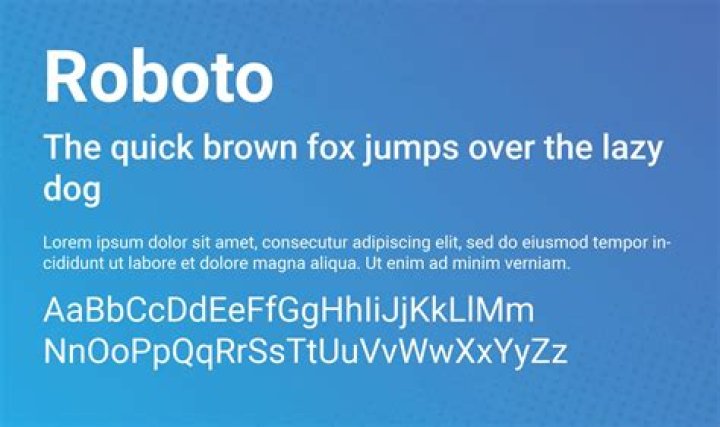
What is Roboto regular?
Roboto (/roʊˈbɒt. oʊ/) is a neo-grotesque sans-serif typeface family developed by Google as the system font for its mobile operating system Android, and released in 2011 for Android 4.0 “Ice Cream Sandwich”. The entire font family has been licensed under the Apache license.
Is Roboto an Adobe font?
Is Roboto similar to Helvetica?
The popular default Android font, Roboto, is open-source and free to use. Roboto’s lowercase letterforms are slightly thinner-feeling than Helvetica’s. As a look-alike, it’s not perfect, but Roboto is optimized for screens.
What does Roboto pair with?
Roboto font pairings Roboto is an open source, sans-serif font originally developed by Google for Android. Its a modern, crisp typeface that pairs well with Archvio, Lora, Rokkit, Nunito, Raleway and Space Mono.
Is Roboto Slab a good font?
Roboto Slab is a free, open-source slab serif typeface designed by Christian Robertson. It was created to be used alongside the sans-serif version of Roboto. Roboto Slab contains nine weights but doesn’t contain any italic styles, so it’s not really an appropriate font for setting body copy.
Why Roboto is a good font?
Unlike other grotesque fonts, Roboto allows letters to take up as much space as it needs and ultimately, making for an improved experience for the reader. Roboto was not an immediate hit in some smaller communities — specifically with some Typography experts.
What goes well with Roboto?
Is Roboto a web safe font?
3. Source Sans Pro. Like Roboto, Source Sans Pro was designed specifically for a multi-device world. Not only is it web-safe, it’s also sure to render correctly even if a user has custom browser font settings.